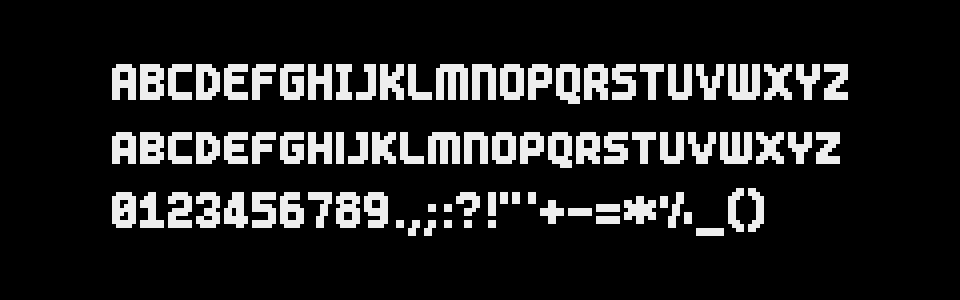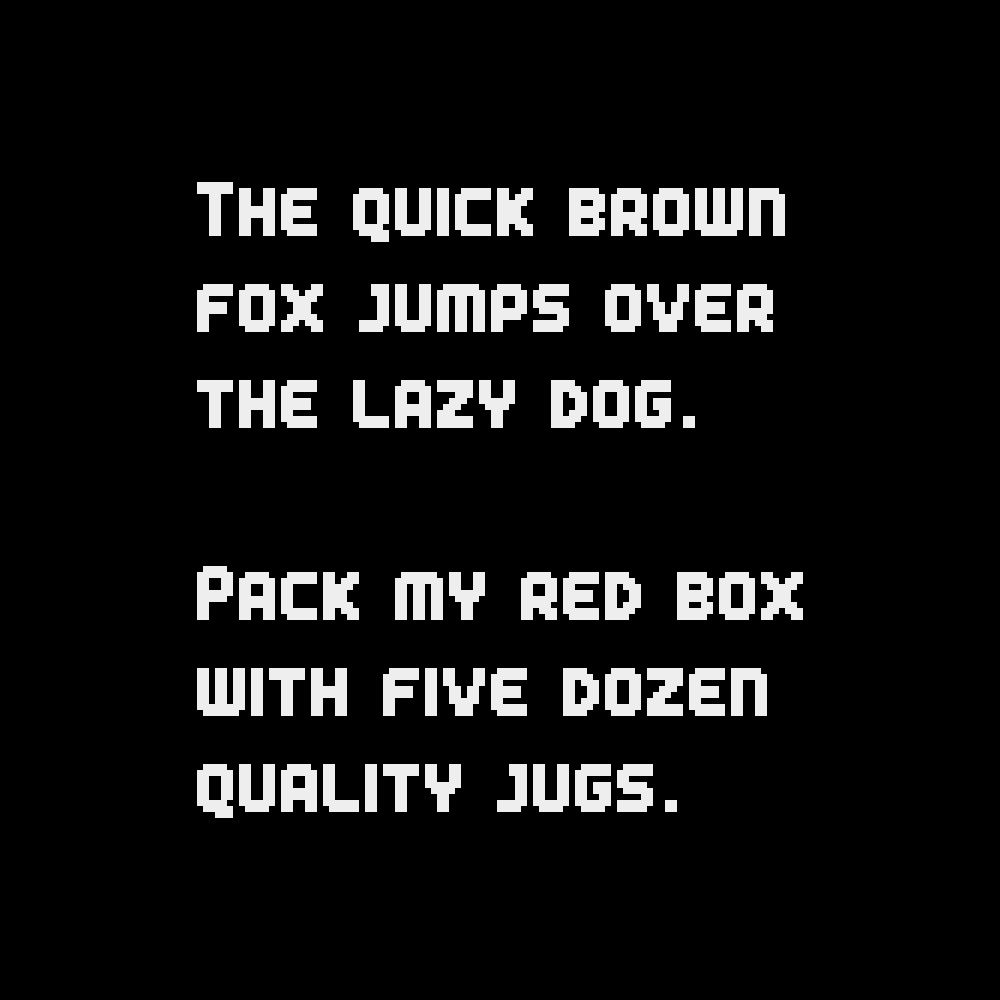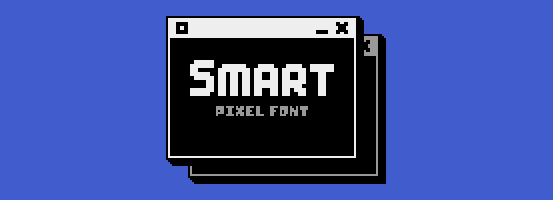
Pixel Font - SMART
A downloadable pixel font
Smart is a classic, chunky, smallcaps, 9px tall pixel font!
Question, in you previews it made it seem like this came with a built-in outline around the letters - did I misinterpret? I'm trying to use this font in an engine that doesn't support outline options so I was hoping it'd be built-in based on the images
Hello! No, the outline is just an effect: there are several ways to achieve that programmatically (like printing the same line in black with an offset, all around the white text), or by adding it to the PNG spritesheet and use that instead.
TTF fonts only have one color, so adding an outline in the font itself can't be done. I'm in the process of updating all my old font pages to avoid this misunderstanding.